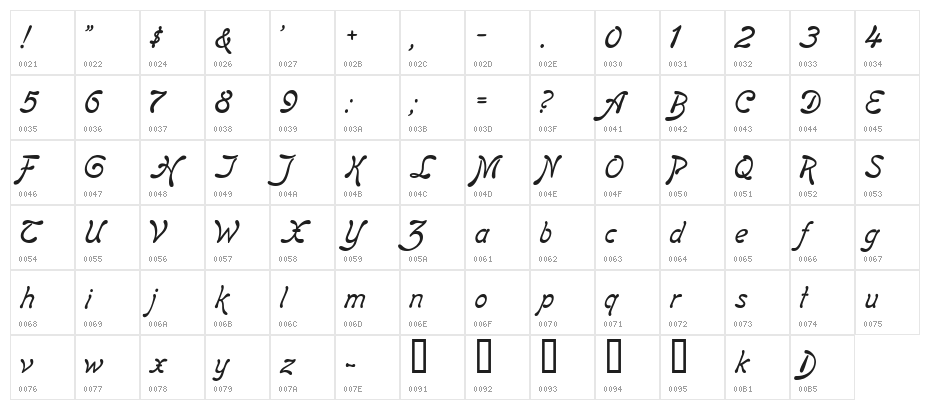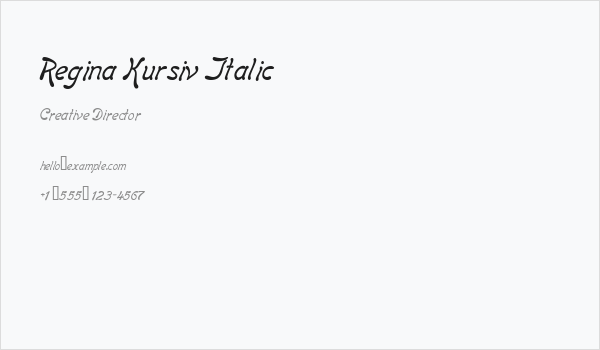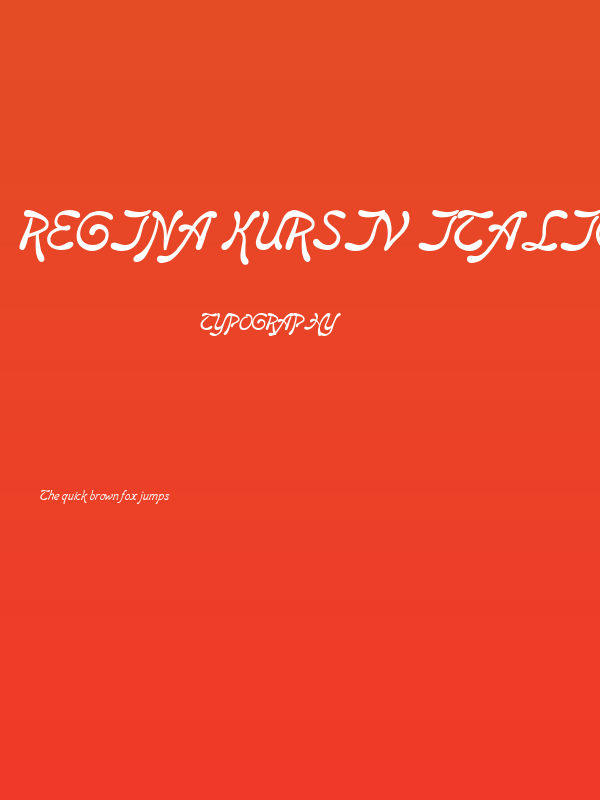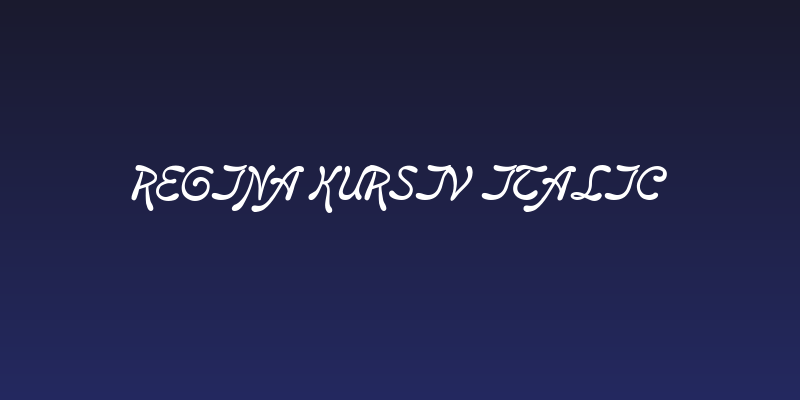
Regina Kursiv Italic Font
Regina Kursiv Italic Description
This font features a flowing, cursive style with elegant curves and a distinct slant, giving it a sophisticated and artistic appearance. The characters are well-balanced, with smooth transitions between thick and thin strokes, enhancing its readability while maintaining a decorative flair. The uppercase letters are bold and prominent, while the lowercase letters are more delicate, creating a harmonious contrast. Numbers and special characters are designed to complement the overall aesthetic, making it versatile for various applications. The font's unique style is suitable for projects that require a touch of elegance and creativity.